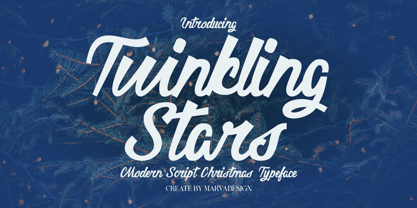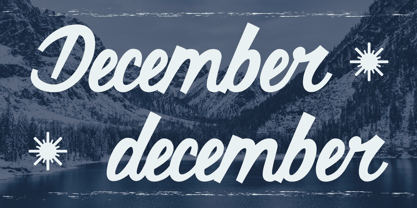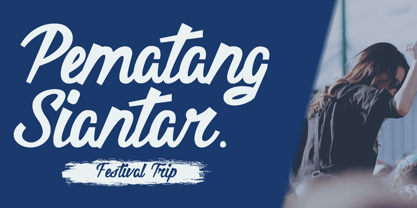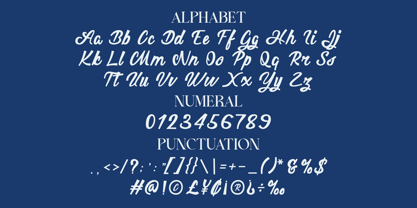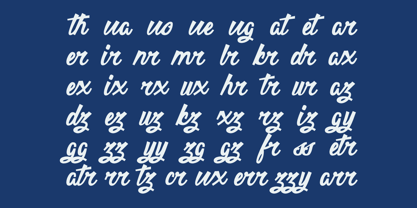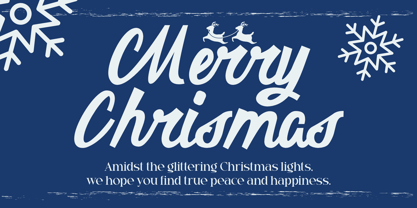
Twinkling Stars
by Marvadesign
The Twinkling Stars Font Family was designed by Febrie Setiawan and published by Marvadesign. Twinkling Stars contains 1 styles. More about this family
Introducing new script typeface Twinkling stars is a modern script typeface designed to evoke a sense of festivity, elegance, and warmth, making it ideal for holiday-themed projects such as Christmas cards, posters, and event invitations. Its smooth, flowing letterforms combine playfulness and sophistication, creating a visually appealing and cheerful look. The font maintains excellent readability despite its decorative cursive style, ensuring clear communication while enhancing aesthetic appeal. With a blend of contemporary design and classic charm, this typeface is versatile enough to be used in creative branding, social media content, and celebratory materials, making it a perfect choice for spreading joy and holiday spirit.
Designers: Febrie Setiawan
Foundry: Marvadesign